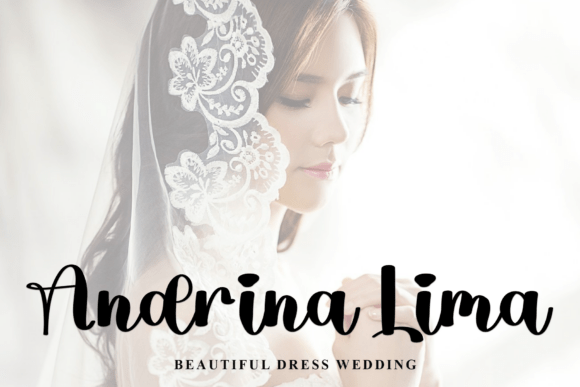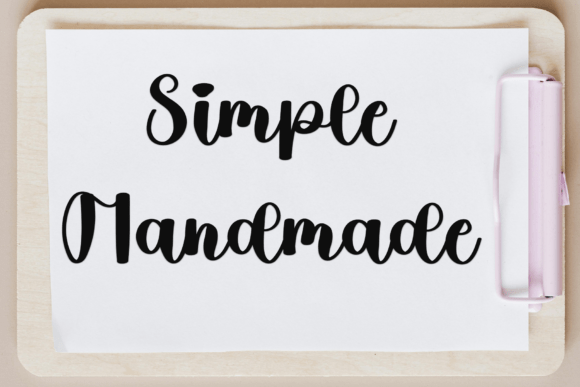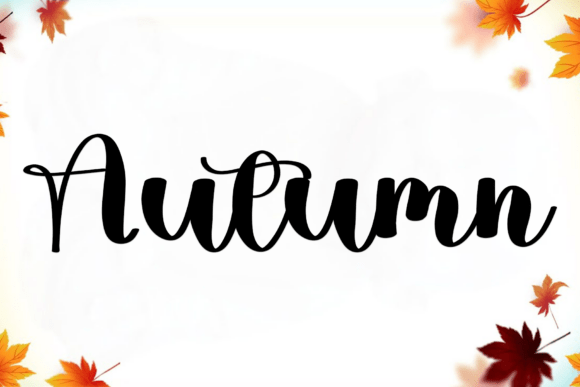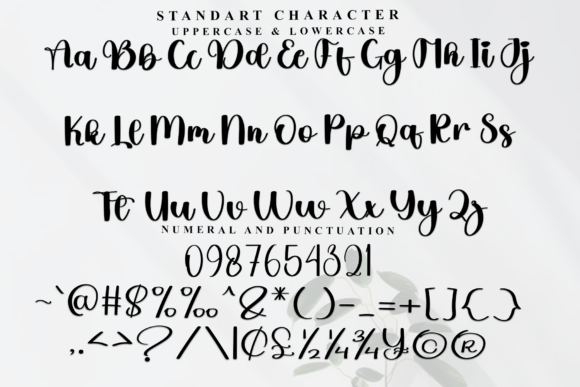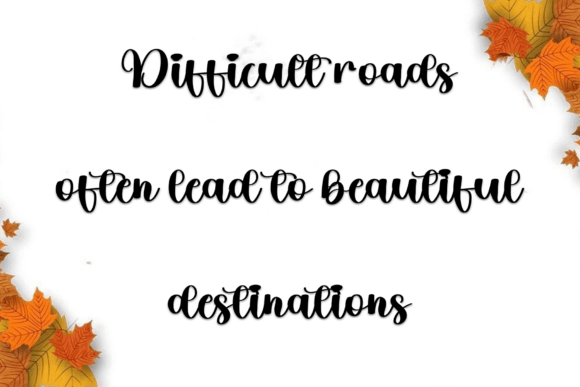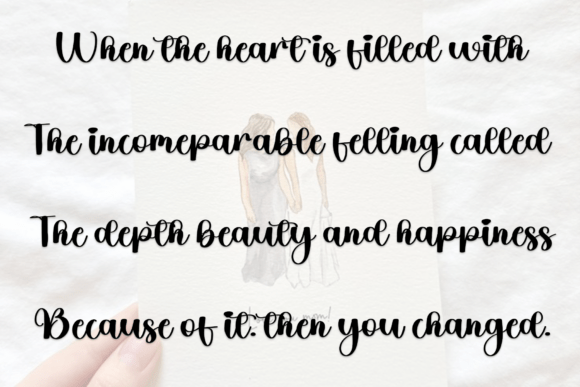
Introducing Delighter Font: The Ultimate Holiday Typeface
The holiday season is upon us, and what better way to get into the spirit than with a festive and merry typeface? Look no further than Delighter Font, a decorative and whimsical font that’s perfect for adding a touch of enchantment to your designs. Whether you’re a designer, crafter, or simply someone who loves the magic of the holiday season, Delighter Font is sure to bring a cheerful and nostalgic ambiance to your words.
Capturing the Spirit of the Holiday Season
Delighter Font is more than just a typeface – it’s an experience. With its decorative elements and whimsical flair, it’s the perfect way to add some holiday cheer to your designs. Imagine creating greeting cards, gift tags, and holiday-themed projects that transport your recipients to a winter wonderland of joy and magic. That’s what Delighter Font can do for you.
Delighter Font is a dream come true for designers and crafters who love working with typography. Whether you’re creating professional designs or handmade crafts, this font is sure to add a touch of personality and whimsy to your work. With its festive and merry vibe, it’s perfect for:
- Gift tags and wrapping paper
- Holiday-themed projects and decorations
The Magic of PUA Encoding
One of the best things about Delighter Font is that it’s PUA (Private Use Area) encoded, which means you can access all of the amazing glyphs and ligatures with ease. This makes it simple to add decorative elements and special characters to your designs, taking your typography to the next level.
Bringing Your Typography to Life
With Delighter Font, you can let your typography shine with the magic of beautiful font. Imagine being able to create stunning designs that capture the essence of the holiday season, with intricate details and whimsical flourishes. Whether you’re a seasoned designer or just starting out, this font is sure to inspire you to create something truly special.
Key Features of Delighter Font
So what makes Delighter Font so special? Here are just a few of its key features:
- Festive and merry typeface perfect for the holiday season
- Decorative elements and whimsical flair add a touch of enchantment to your designs
- Perfect for greeting cards, gift tags, and holiday-themed projects
- Cheerful and nostalgic ambiance that’s sure to delight